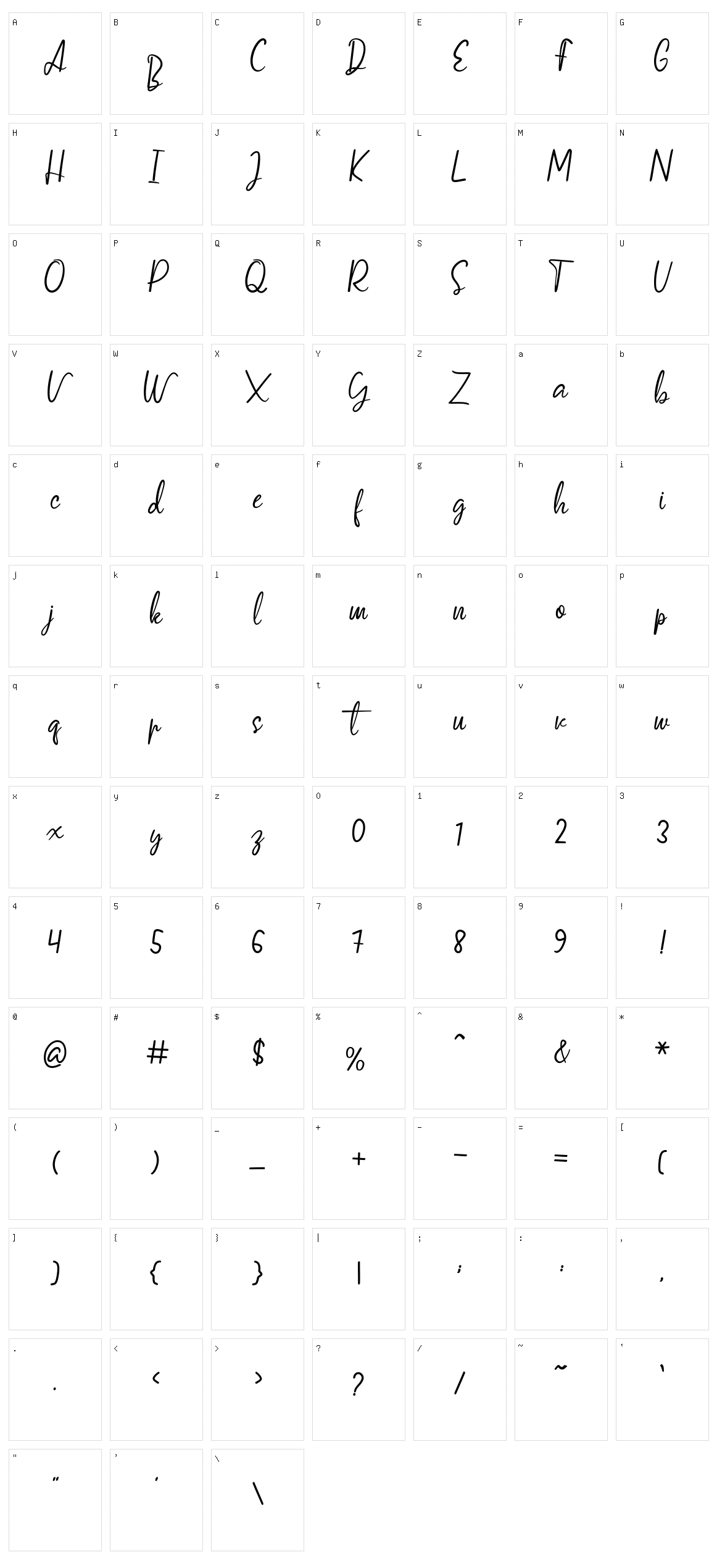
Vertica Scripts is a clean, elegant, beautiful and simple font it can be incorporated into many designs including quotes text, book cover, logos, wedding invitations, posters and many more.